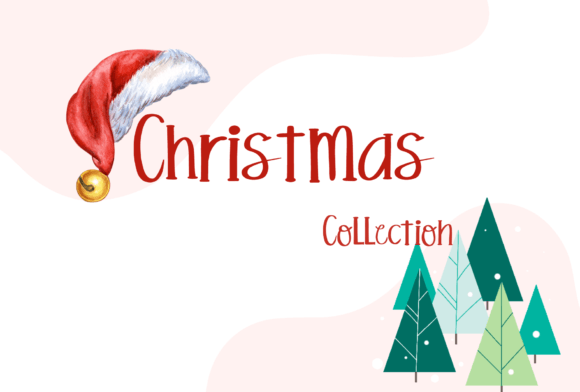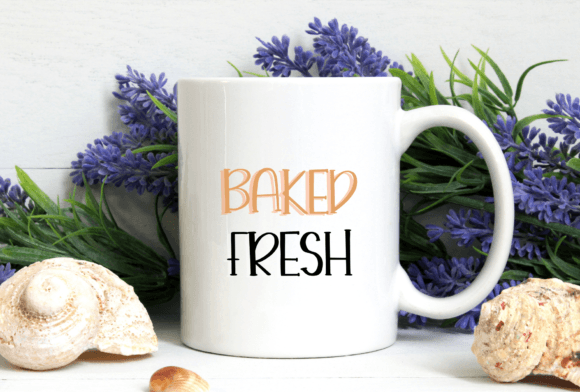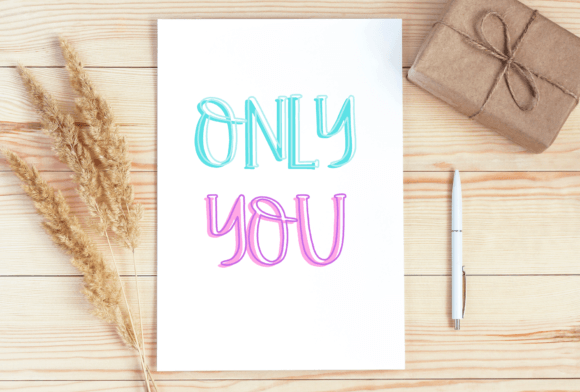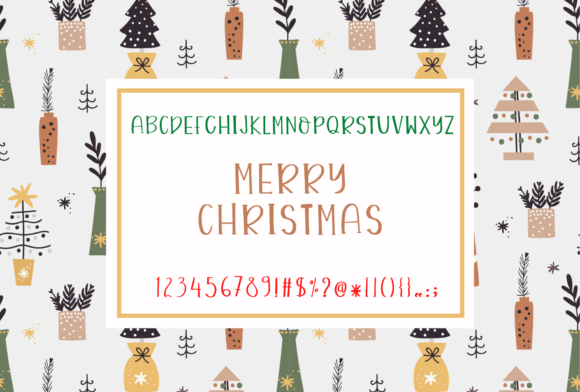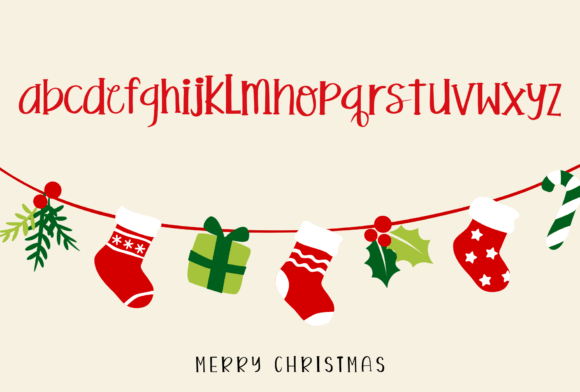
Christmas Collection Font
Christmas Collection Handwritten Font – Cute and Quirky Typeface
The Christmas Collection Handwritten Font is a playful and charming script typeface created to bring festive joy to your designs. With its quirky handwritten style and cute details, it works beautifully across holiday-themed projects and beyond. Whether you’re creating Christmas cards, posters, or invitations, this font ensures your work feels warm and unique.
A Handwritten Script with Festive Style
The Christmas Collection Handwritten Font combines playful handwritten strokes with cheerful proportions. Its quirky look makes it eye-catching, while its clean structure keeps it readable. Because of this, it adapts seamlessly to seasonal designs, branding, and personal crafts.
Perfect for Holiday Cards and Posters
One of the most popular uses of the Christmas Collection Handwritten Font is in greeting cards and festive posters. Its cheerful flow brings energy to Christmas invitations, gift tags, and holiday banners. At the same time, it works wonderfully for logos, quotes, and social media graphics, making it a versatile choice for creative projects.
The Christmas Collection Handwritten Font adapts well to many different applications. From holiday packaging and branding to DIY crafts and digital designs, it provides a handwritten charm that feels fun and festive. Its versatility ensures it can be used for seasonal work while still fitting everyday creative needs.
Why Designers Love Christmas Collection Font
Designers love the Christmas Collection HandwrittenFont because it combines quirky character with usability. Its playful style makes it stand out in festive projects, while its readability ensures practicality for professional use. This mix of charm and function makes it a must-have font for the holiday season.